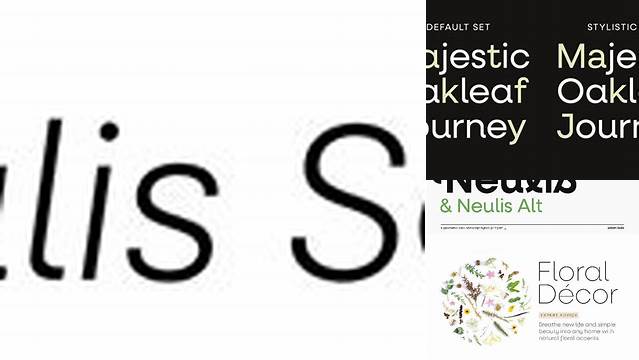
When it comes to typography, the Neulis Sans font stands out as a versatile and modern choice for designers and creatives alike. Its clean lines and balanced letterforms make it suitable for a wide range of applications, from branding and advertising to web design and editorial layouts. If you're looking to enhance your projects with a contemporary touch, understanding how to access Neulis Sans font free download TTF files is essential. In this article, we'll delve into everything you need to know about this popular font, including its features, uses, and where to find legitimate sources for downloading the TTF version for free.
The importance of selecting the right font cannot be overstated. A font is more than just a way to display text; it's a crucial element of visual communication that significantly impacts the readability, aesthetics, and overall effectiveness of your design. Neulis Sans excels in this regard, offering a harmonious blend of style and functionality. Its neutral yet distinct character makes it a go-to option for projects that require a professional and approachable look. Whether you're designing a website, creating marketing materials, or working on a presentation, Neulis Sans can help you achieve a polished and cohesive visual identity. Moreover, the availability of Neulis Sans font free download TTF options means that you can access this valuable resource without incurring any costs, making it an attractive choice for both seasoned professionals and aspiring designers on a budget. As we explore the various aspects of Neulis Sans, you'll discover why it has become a favorite among those who seek a reliable and visually appealing typeface. From its technical specifications to its practical applications, we'll cover everything you need to make the most of this font in your creative endeavors. So, let's dive in and uncover the world of Neulis Sans and how you can leverage it to elevate your designs.
What is Neulis Sans Font?
Neulis Sans font is a contemporary typeface characterized by its clean, minimalist design. It belongs to the sans-serif family, meaning it lacks the small decorative strokes (serifs) that are typically found at the end of letterforms in serif fonts. This gives Neulis Sans a modern and uncluttered appearance, making it highly legible and versatile for various design applications. The font is designed with balanced proportions and consistent letter spacing, ensuring a harmonious visual rhythm that enhances readability. Its neutral yet distinct character makes it suitable for both display and body text, allowing it to be used in headlines, subheadings, and paragraph content without sacrificing clarity or aesthetic appeal.
The design philosophy behind Neulis Sans emphasizes simplicity and functionality. The absence of serifs contributes to its clean and straightforward look, which is particularly well-suited for digital interfaces and modern branding. The font's geometric structure and precise detailing create a sense of order and professionalism, making it a reliable choice for corporate communications, web design, and print materials. Neulis Sans is also designed to be highly scalable, meaning it maintains its clarity and sharpness at various sizes, whether it's used in small captions or large-format displays. This scalability is crucial for ensuring that your text remains legible and visually appealing across different devices and media. The font's adaptability extends to its compatibility with various design software and operating systems, making it a seamless addition to any designer's toolkit. Whether you're working on Adobe Creative Suite, Sketch, or other popular design platforms, Neulis Sans integrates smoothly, allowing you to focus on your creative process without worrying about technical issues. Furthermore, the availability of Neulis Sans font free download TTF ensures that accessibility is not a barrier, enabling designers from all backgrounds to leverage its benefits in their projects. In essence, Neulis Sans is a testament to the power of minimalist design, offering a versatile and reliable typeface that meets the demands of contemporary visual communication.
Key Features of Neulis Sans
Neulis Sans boasts several key features that make it a popular choice among designers:
- Clean and Modern Design: As mentioned earlier, its sans-serif nature gives it a contemporary look.
- High Legibility: The balanced letterforms and spacing ensure readability in various sizes and contexts.
- Versatility: Suitable for headlines, body text, and UI elements.
- Scalability: Maintains clarity and sharpness at different sizes.
- Wide Language Support: Often includes glyphs for multiple languages.
In conclusion, Neulis Sans font is a versatile and modern typeface that can enhance a wide range of design projects. Its clean lines, balanced letterforms, and high legibility make it a popular choice for both display and body text. While finding a Neulis Sans font free download TTF requires careful attention to ensure legitimacy and proper licensing, the effort is well worth it for the value this font brings to your designs. By following the tips and guidelines outlined in this article, you can effectively use Neulis Sans to create visually appealing and engaging content. And if you're unable to find a free version, the alternatives mentioned provide excellent options for achieving a similar aesthetic. Happy designing!